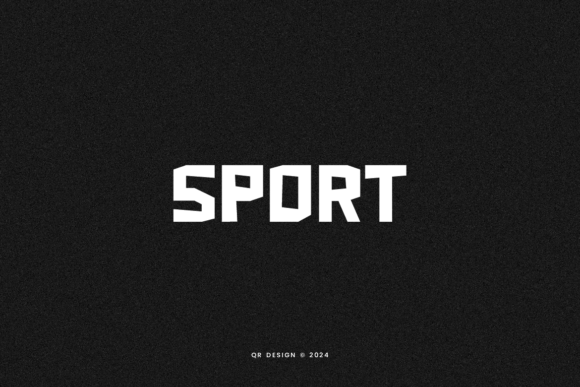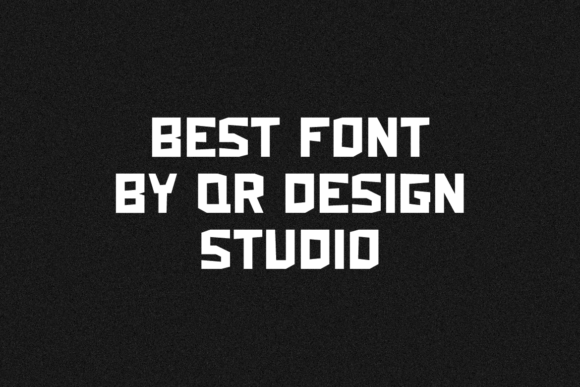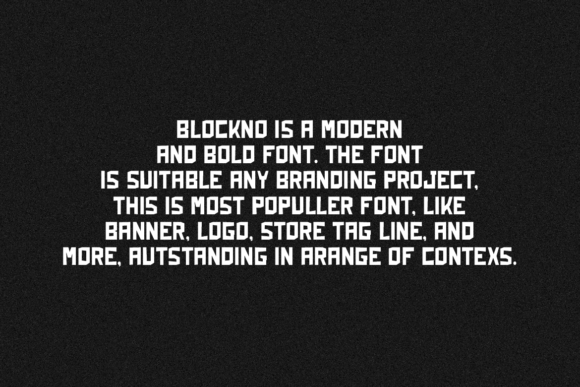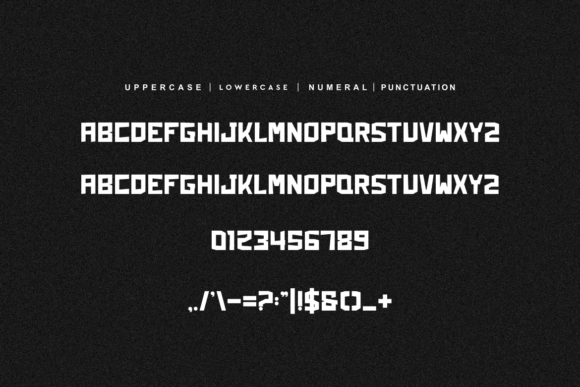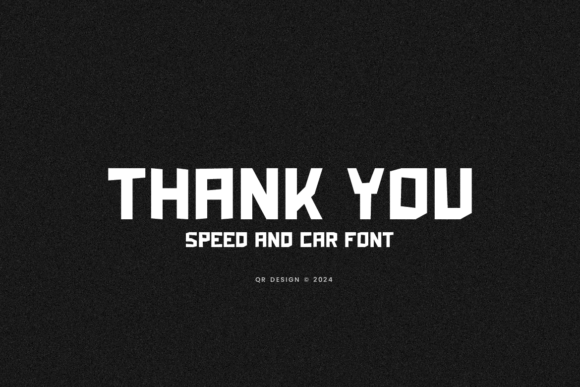
Introducing Blockno Font: The Ultimate Choice for Speed and Energy
In the world of typography, fonts play a crucial role in conveying the message and tone of a brand or design. For designers and crafters looking for a font that embodies speed, energy, and modernity, Blockno Font is the perfect choice. Designed to resemble the style of speed and racing, Blockno Font is a bold and fast-looking font that is sure to capture the excitement of speed in every letter.
Design and Features
Blockno Font is characterized by its strong, sharp, and modern letters that are perfect for logos, signs, and anything related to cars or high energy. The font’s sleek design is inspired by the world of speed and racing, making it an ideal choice for designers who want to convey a sense of dynamism and movement. The letters are carefully crafted to be bold and eye-catching, ensuring that your design stands out from the crowd.
Perfect for High-Energy Designs
Whether you’re designing a logo for a car brand, creating a sign for a racing event, or simply looking for a font that captures the essence of speed and energy, Blockno Font is the perfect choice. The font’s modern and sleek design makes it versatile enough to be used in a variety of contexts, from sports and automotive to technology and entertainment.
Key Benefits for Designers and Crafters
- Bold and eye-catching design: Blockno Font is designed to grab attention and make a statement. Its bold and sharp letters are perfect for creating logos, signs, and other designs that need to stand out.
- Perfect for high-energy designs: The font’s sleek and modern design makes it ideal for designs that require a sense of speed and energy.
- Versatile and adaptable: Blockno Font can be used in a variety of contexts, from sports and automotive to technology and entertainment.
- Easy to read and recognize: Despite its bold design, Blockno Font is easy to read and recognize, making it perfect for use in a variety of applications.
To get the most out of Blockno Font, here are a few tips and inspiration ideas:
- Use it for headlines and titles: Blockno Font is perfect for creating bold and eye-catching headlines and titles.
- Pair it with a sans-serif font: For a clean and modern look, pair Blockno Font with a sans-serif font, such as Arial or Helvetica.
- Experiment with different colors: Blockno Font looks great in a range of colors, from bold and bright to metallic and neon.
In conclusion, Blockno Font is a bold and fast-looking font that is perfect for designers and crafters looking to convey a sense of speed and energy. Its sleek design, strong letters, and modern style make it an ideal choice for logos, signs, and anything related to cars or high energy. With its versatility, adaptability, and ease of use, Blockno Font is a must-have font for any designer or crafter looking to add a touch of excitement and dynamism to their designs.